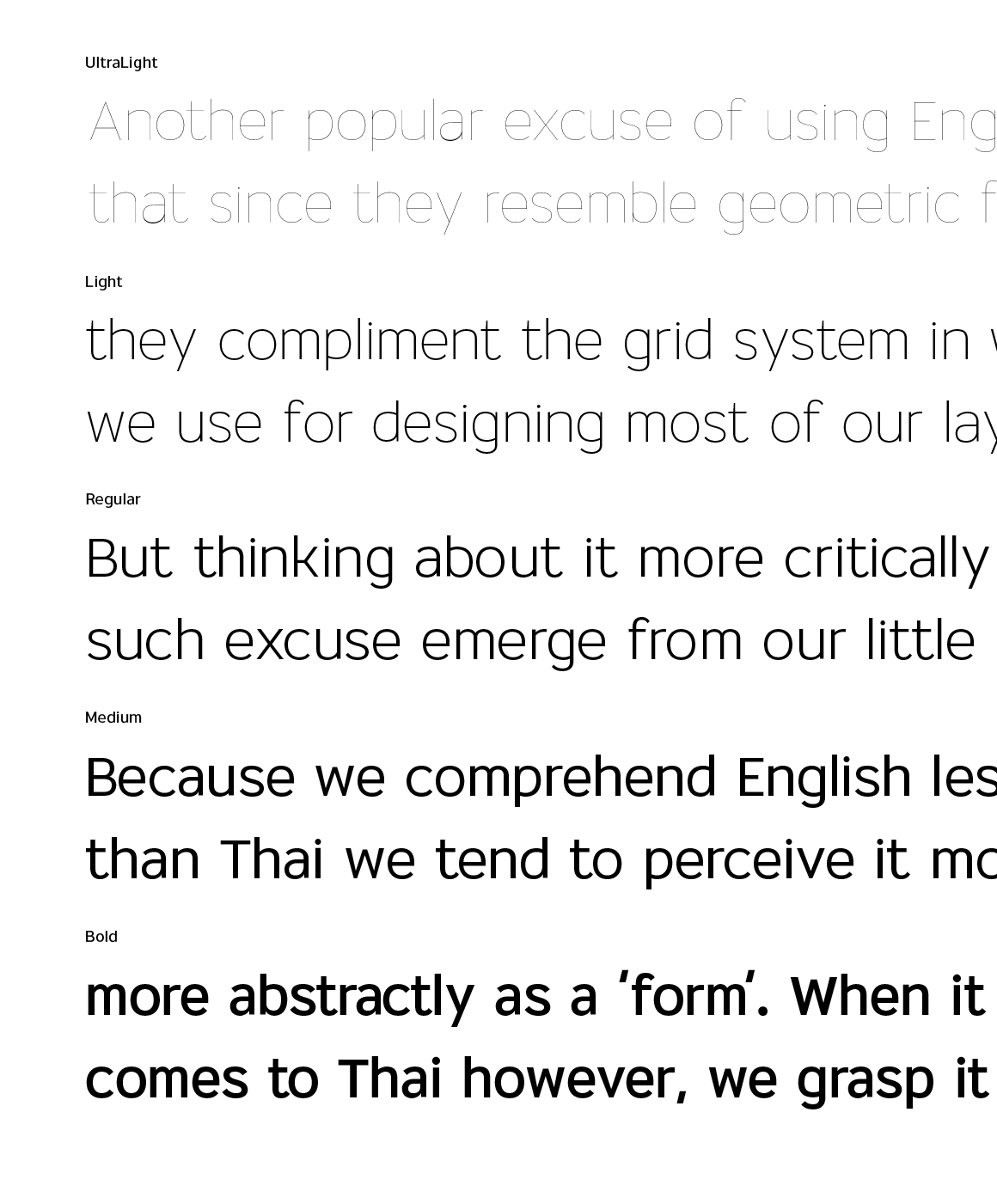
Private
Private is a Loop terminal typeface with some humanist touches creating a minimal, clear and legible typeface. The Idea is to make a basic proportional system that elegant and perfect for use as a text to large sizes, with a set of alternative characters such as ญ, K, Q and R for your design in any layout.
Name :Private
Weight : UltraLight, Light, Regular, Medium and Bold
Language : Latin1 / Thai
Designer : Thanarat Vachiruckul
Technician : Thanarat Vachiruckul